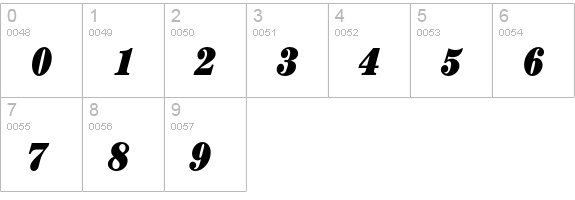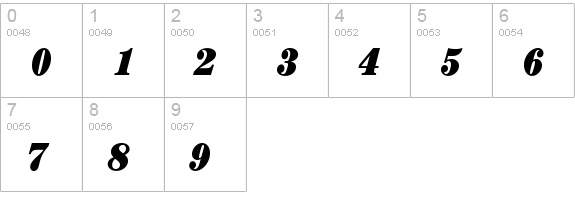
CenturyEF-UltraCondItalic Font Details
CenturyEF-UltraCondItalic is a sleek and sophisticated font that exudes elegance and professionalism. With its slender and italicized design, this font is perfect for adding a touch of modernity to any project. The sharp angles and clean lines of CenturyEF-UltraCondItalic make it ideal for creating a bold statement or for emphasizing important information. What sets CenturyEF-UltraCondItalic apart is that it is not only stylish and versatile, but it is also free to download. Yes, you read that right - this premium font is freely available at FontsMarket.com, allowing you to enhance your designs without breaking the bank. Whether you're working on a print project, a website, or any other creative endeavor, CenturyEF-UltraCondItalic is sure to elevate your work to the next level. Don't miss out on this opportunity to add a touch of sophistication to your design arsenal with CenturyEF-UltraCondItalic.